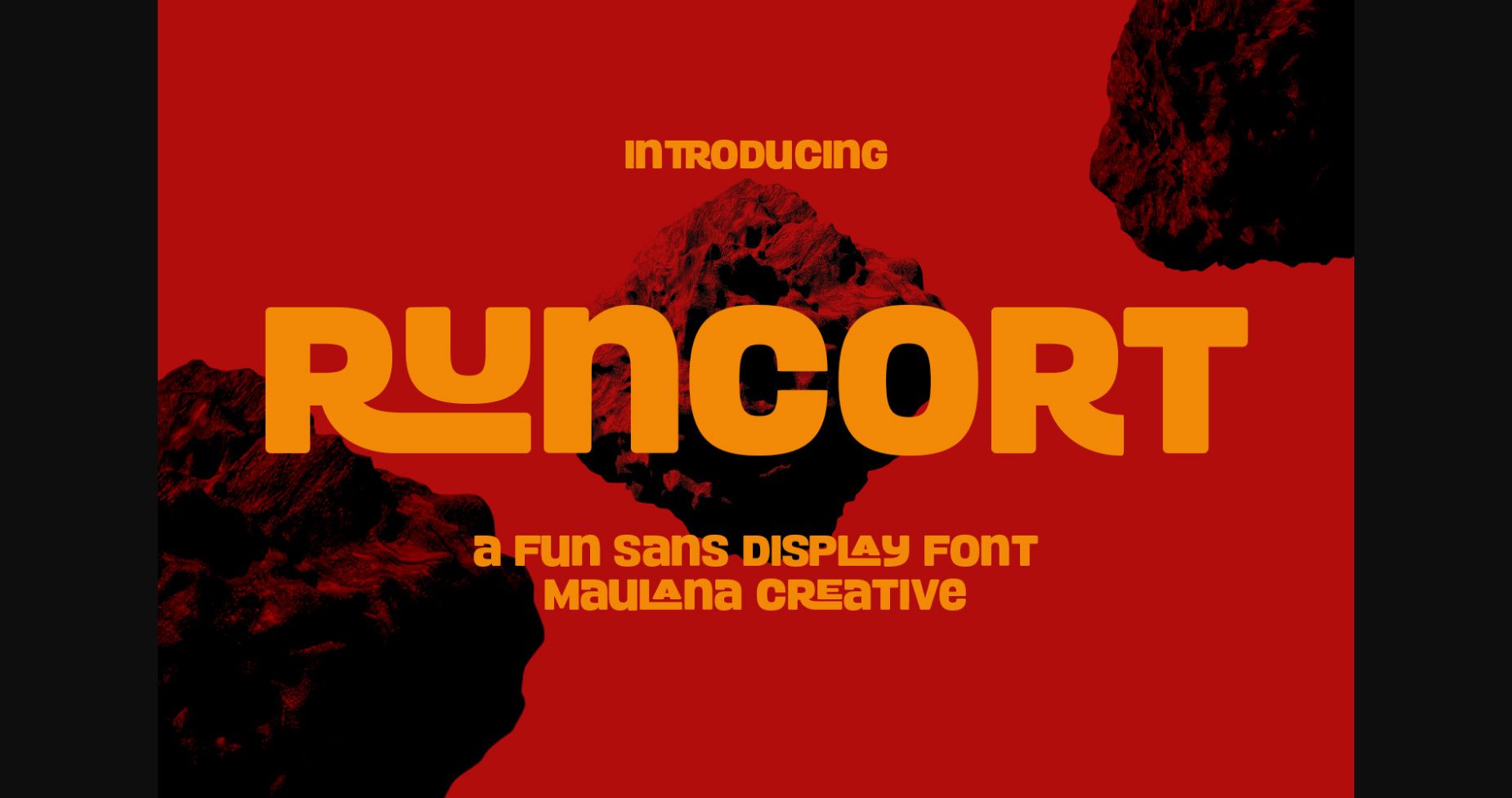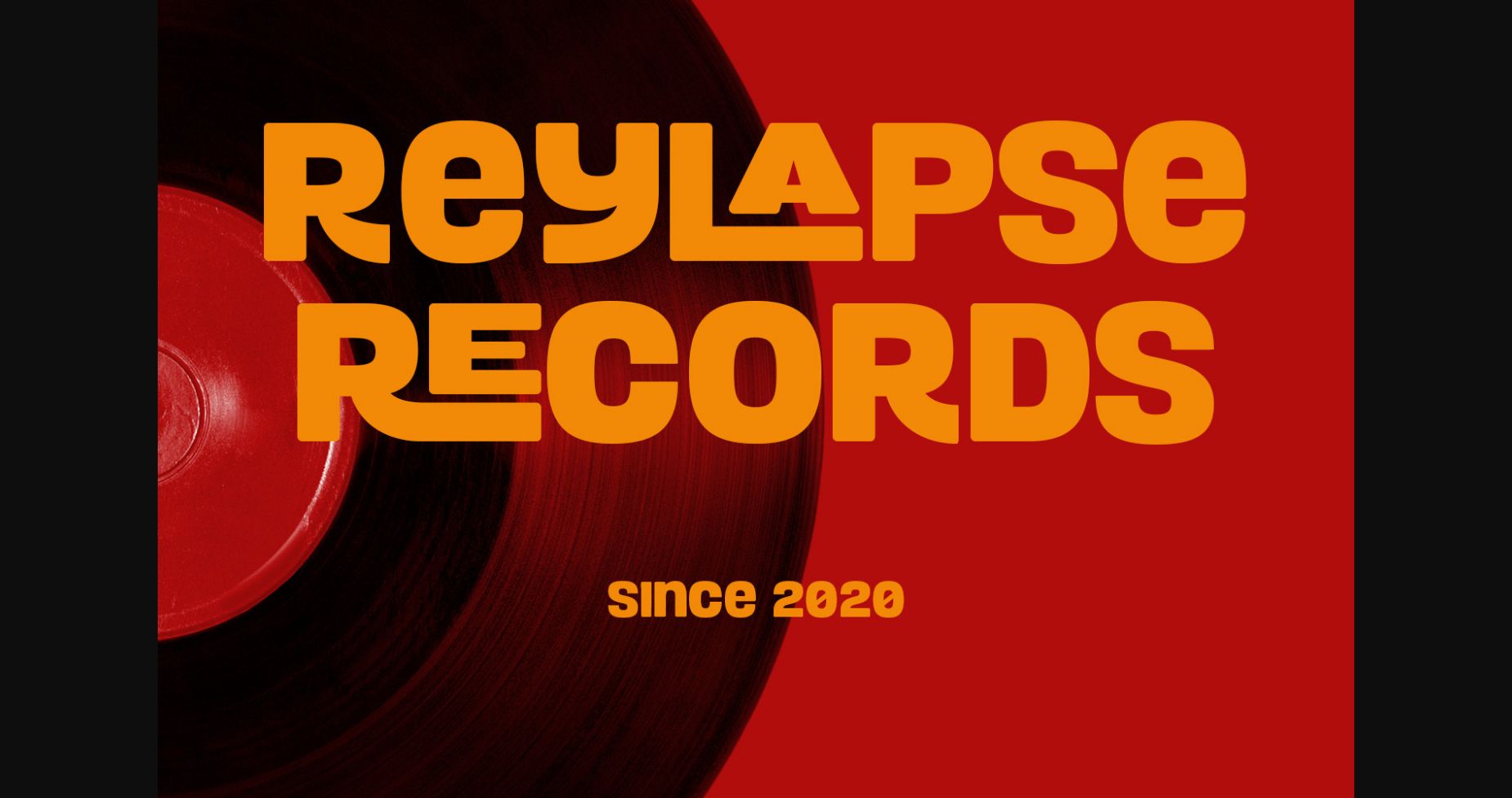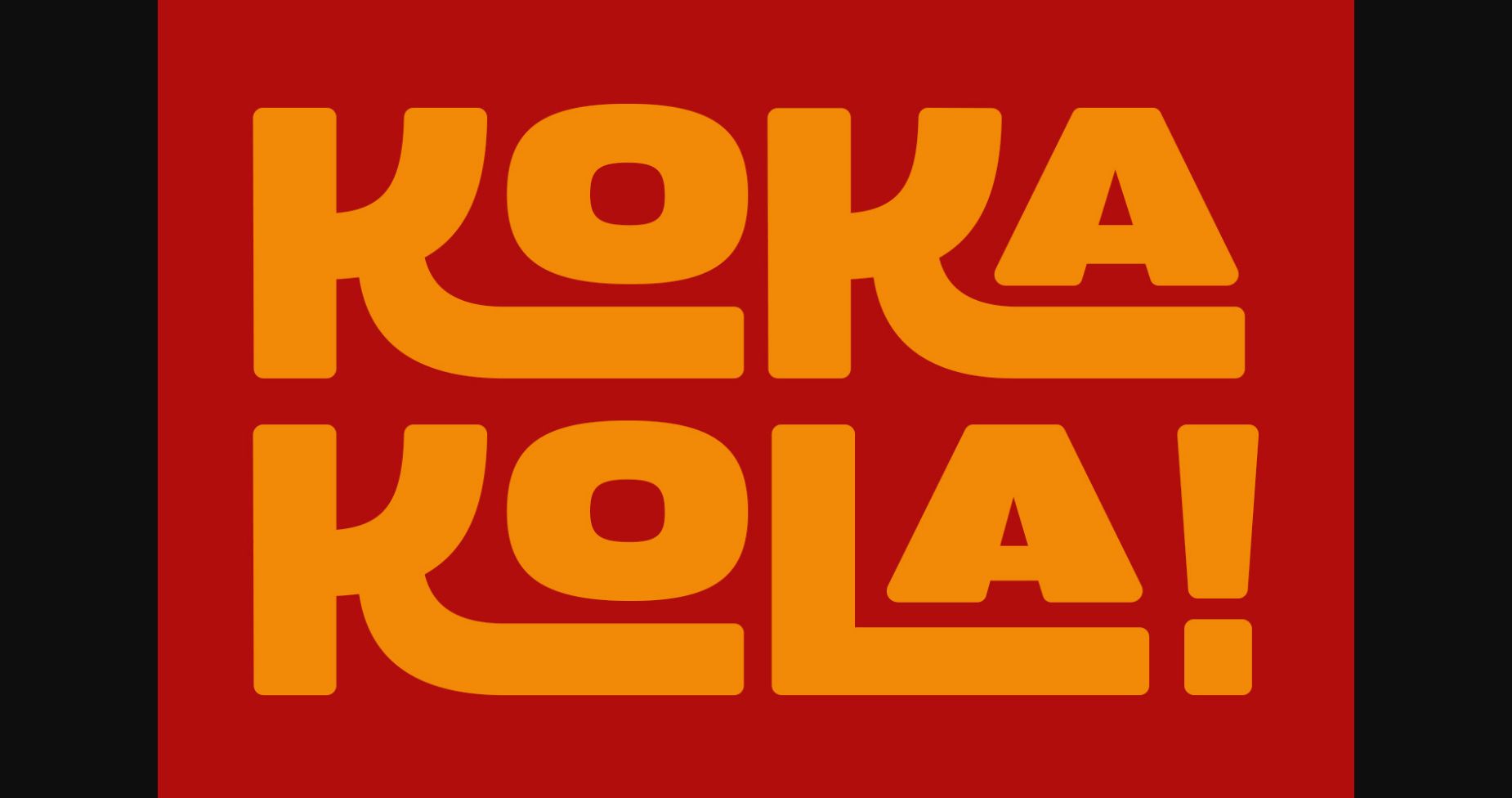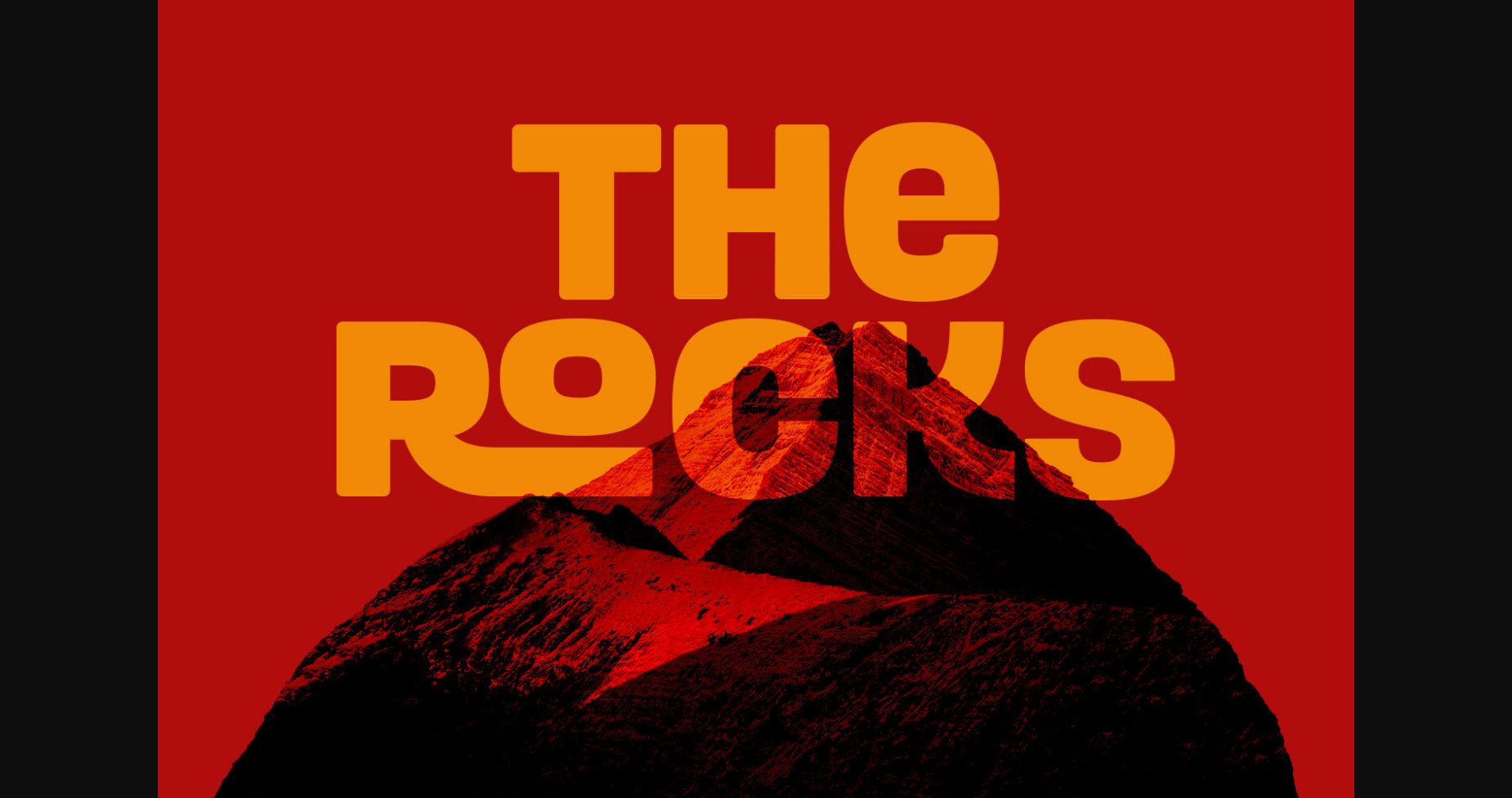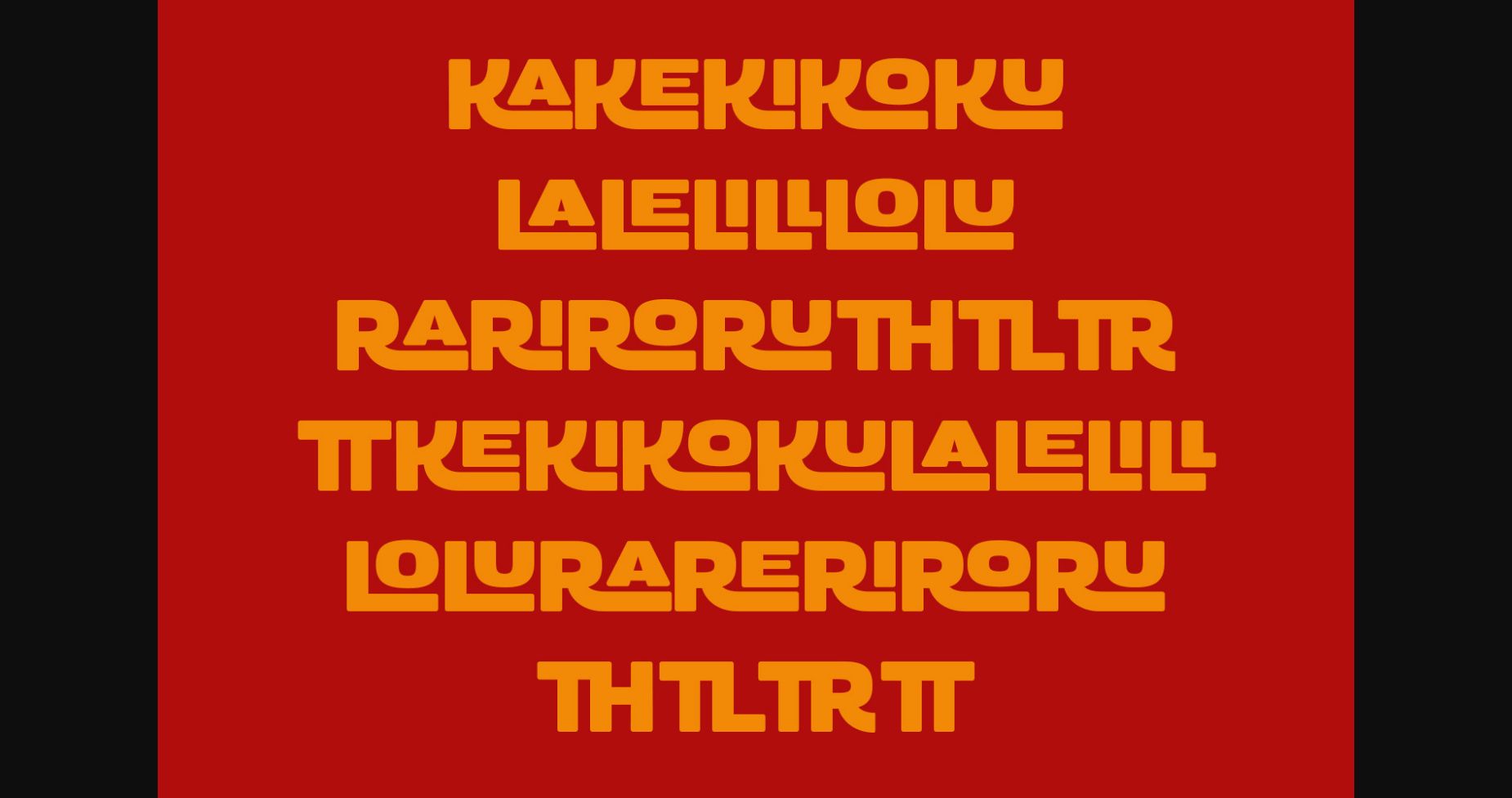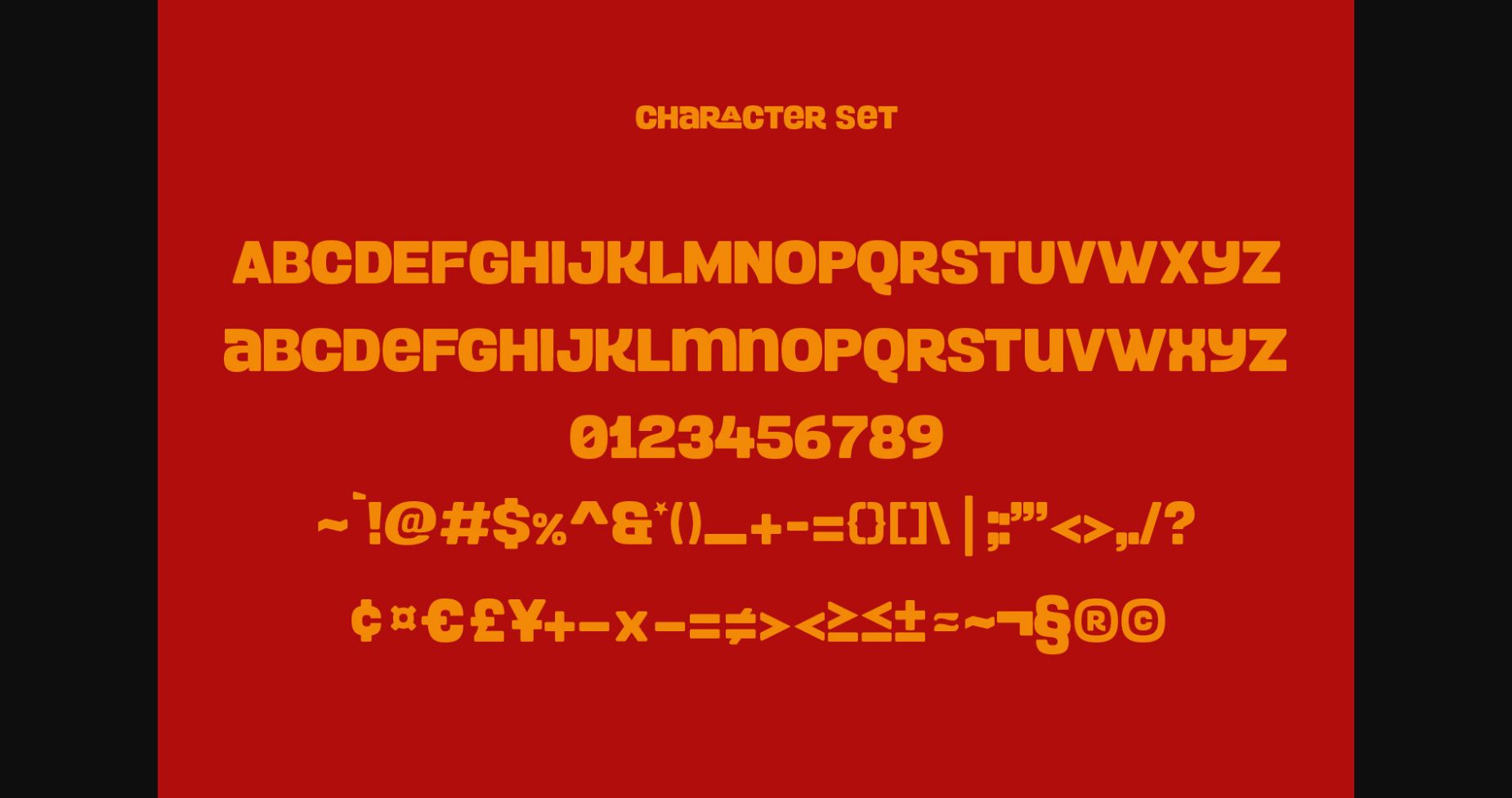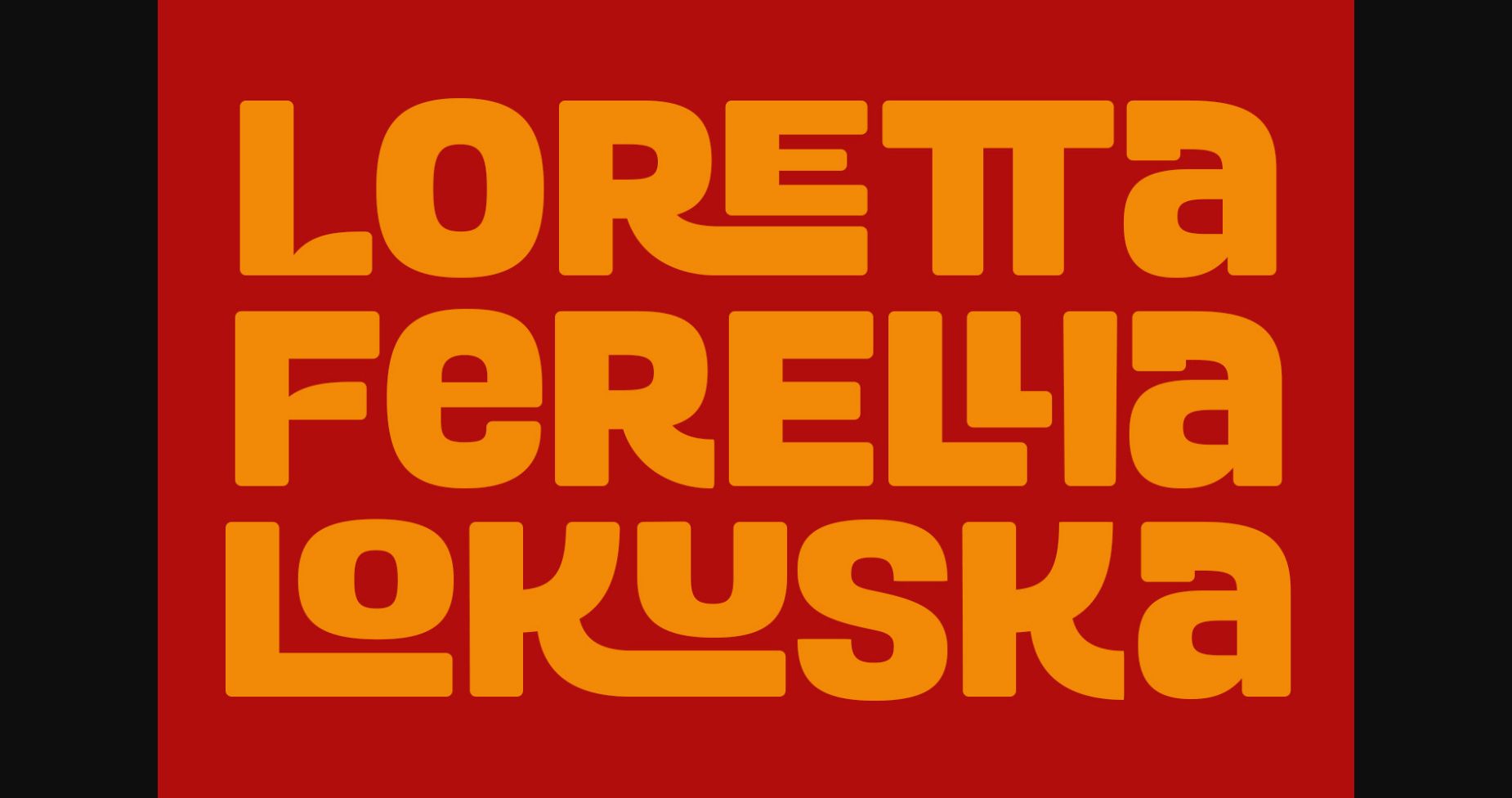
Runcort Font
About Runcort Font
Runcort is an all-caps sans display font. Bold stroke, fun character with a bit of ligatures and alternates. To give you an extra creative work. Runcort font support multilingual more than 100+ language. This font is good for logo design, Social media, Movie Titles, Books Titles, a short text even a long text letter and good for your secondary text font with script or serif. Make a stunning work with Runcort font.